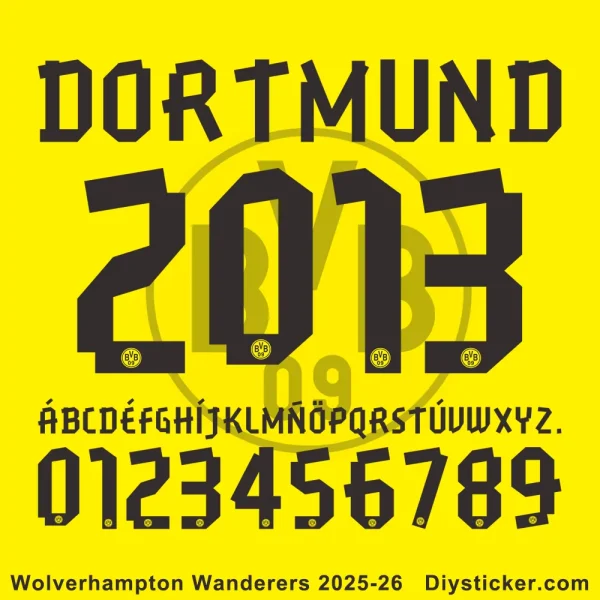
Borussia Dortmund 2012-2013 Font Download
Introducing the Borussia Dortmund 2012-2013 Font pack – a must-have for fans, designers, and collectors of BVB’s iconic era under Jürgen Klopp. This digital download includes authentic vector files in five versatile formats